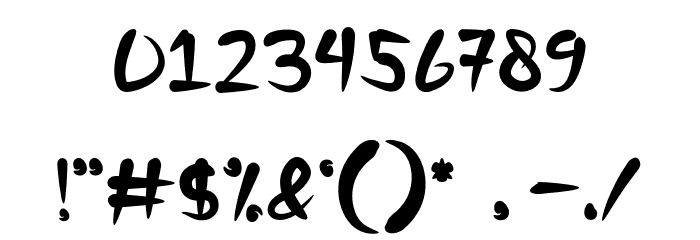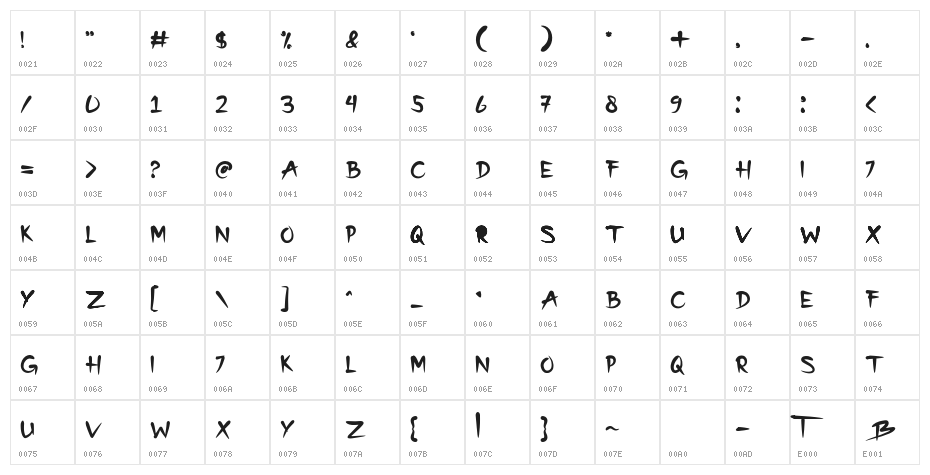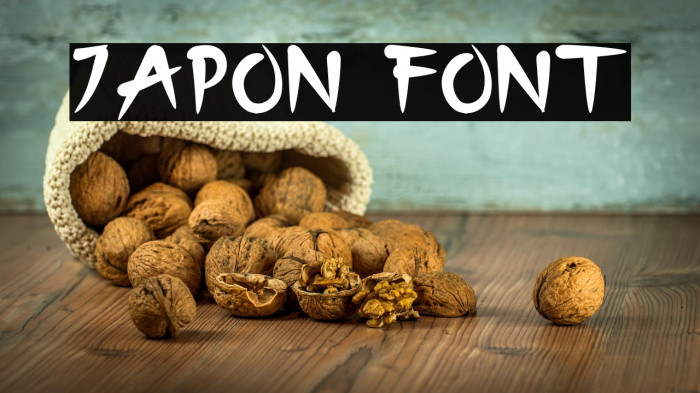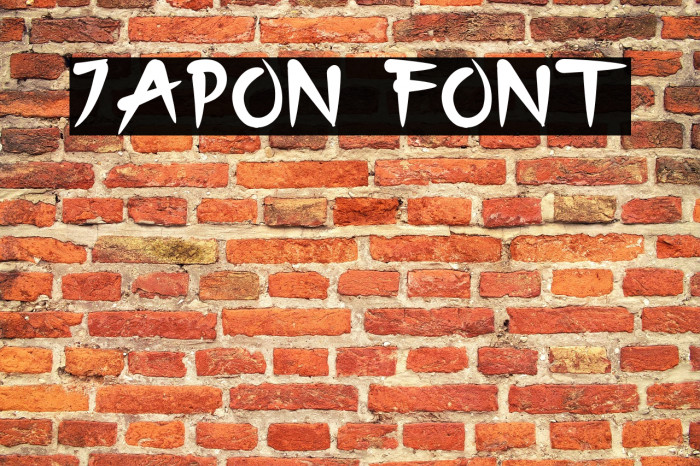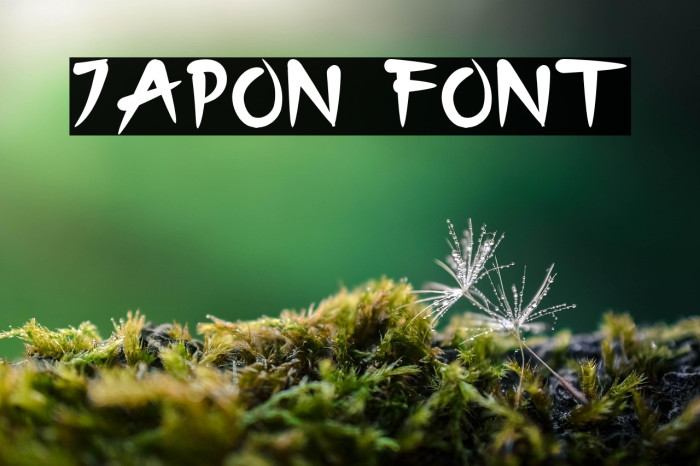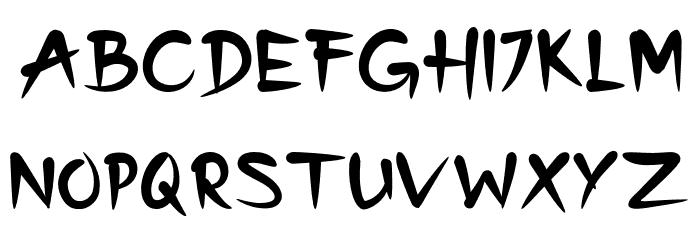
Japon Font
This font features a bold and dynamic style with sharp, angular strokes that give it a sense of movement and energy. The characters are slightly irregular, adding a hand-drawn feel that is both modern and artistic. The uppercase and lowercase letters maintain a consistent style, with a playful yet aggressive appearance. The numerals and special characters are designed to match the overall aesthetic, making them suitable for a variety of creative applications. The font's unique style makes it stand out, perfect for projects that require a bold statement.
| Proposed Projects | Ideal for posters, album covers, branding, and any project that needs a bold, artistic touch. |